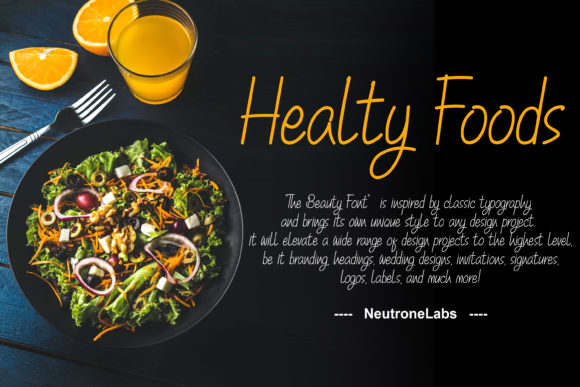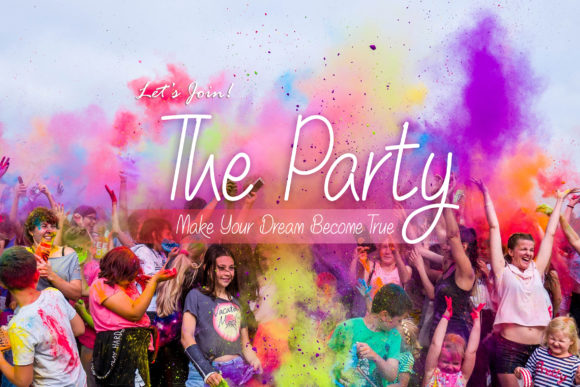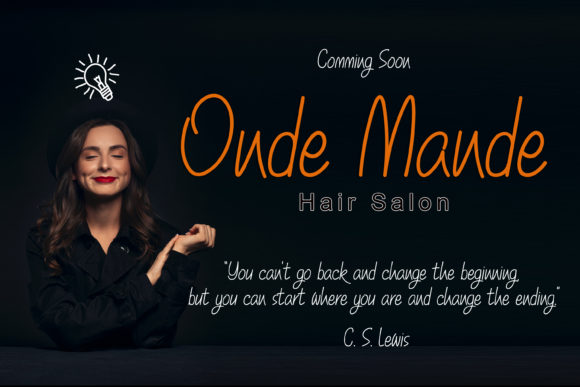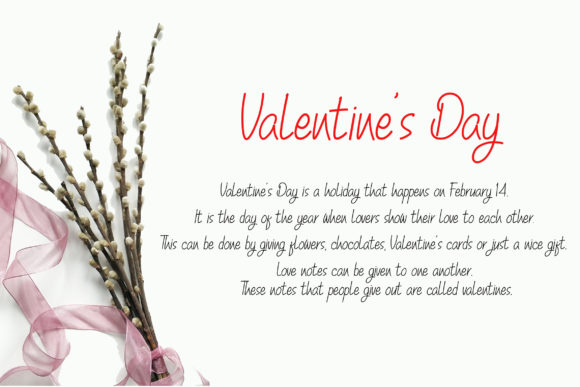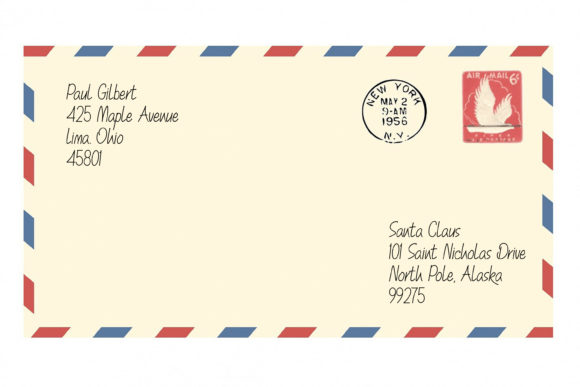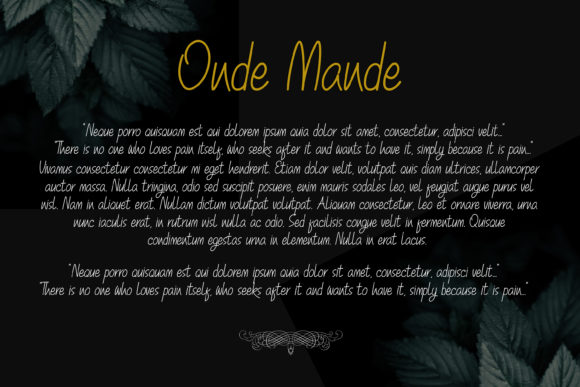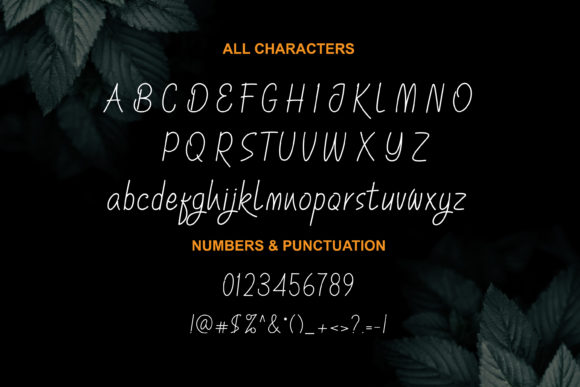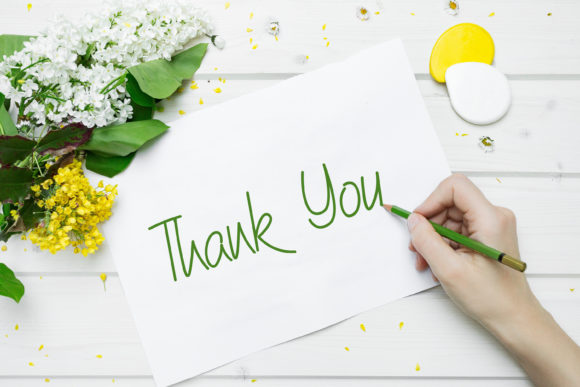
The Beauty Font
About The Beauty Font
The Beauty font sounds absolutely delightful! As a sweet and delicate handwritten font, it brings a sense of charm and elegance to your designs. With its dainty and joyful appearance, The Beauty is a perfect choice for projects that require a romantic and personalized touch, such as wedding invitations, cards, and more.
When it comes to wedding invitations, The Beauty font can create a truly enchanting and romantic atmosphere. Its delicate and handwritten style adds a touch of elegance and sophistication, setting the tone for a beautiful and memorable celebration. The Beauty font captures the essence of joy and love, making your wedding invitations visually appealing and heartfelt.
Cards designed with The Beauty font can convey warmth and affection. Whether you’re creating greeting cards, thank you cards, or any other type of card, this font brings a personal and heartfelt touch to your messages. Its delicate strokes and charming letterforms enhance the overall beauty and sentiment of your designs, making them truly special.
The Beauty font’s sweet and delicate appearance also makes it suitable for a wide range of design projects. Whether you’re creating personalized stationery, crafting labels, or designing social media graphics, this font adds a touch of elegance and personalization to your creations. Its handwritten nature brings a sense of warmth and authenticity, making your designs stand out.
In summary, The Beauty font is a sweet and delicate handwritten font that adds charm and elegance to your designs. It is ideal for projects that require a romantic and personalized touch, such as wedding invitations, cards, and more. Embrace the dainty and joyful nature of The Beauty font to create visually appealing and heartfelt designs that leave a lasting impression. Let this font bring a touch of magic to your creative endeavors and evoke feelings of love and joy.